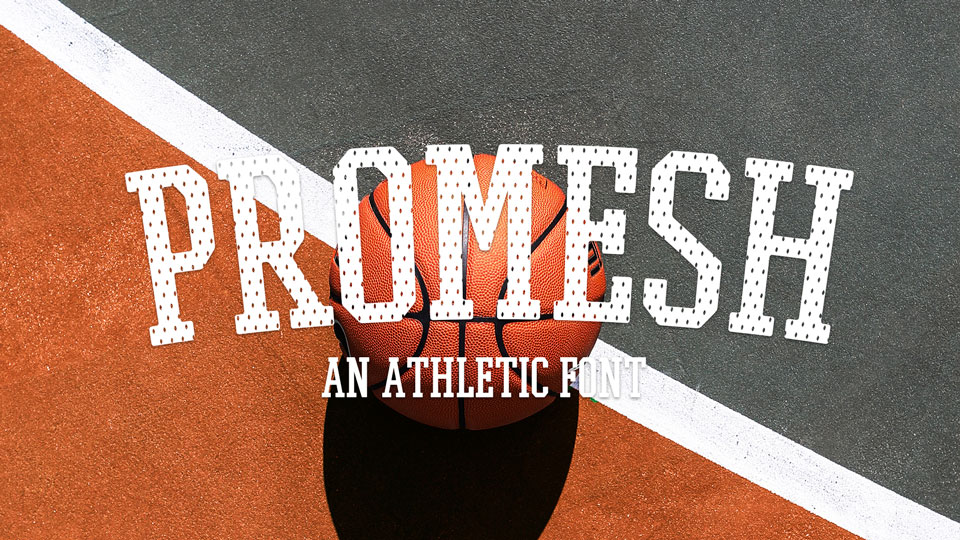
Download Promesh – a sporty display typeface that puts a spin on your typical and boring athletic font with 3 styles – Regular, Stich and Mesh. It contains all caps letters, numbers and symbols. A distressed mesh look of the font reminiscent of those old school basketball jerseys.
Designer: Paul Reis